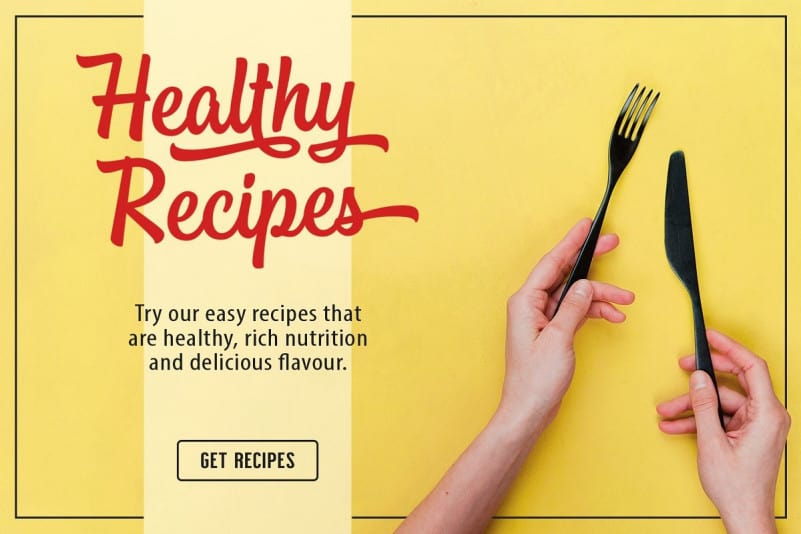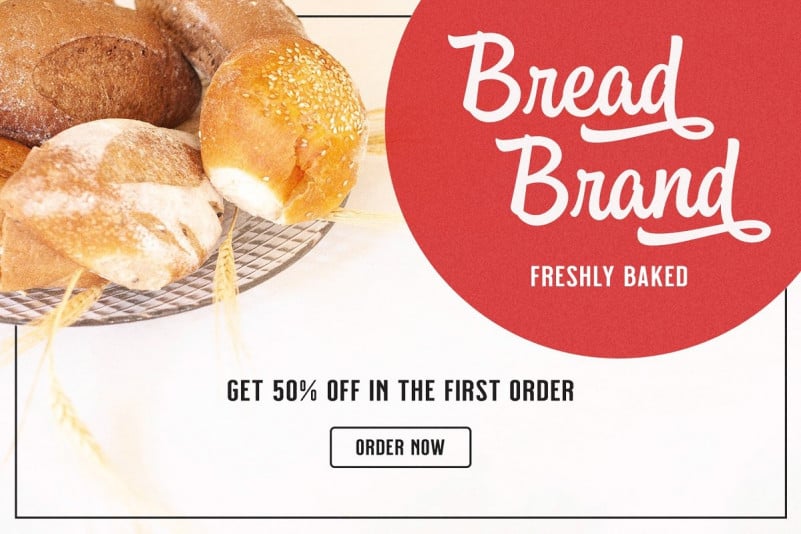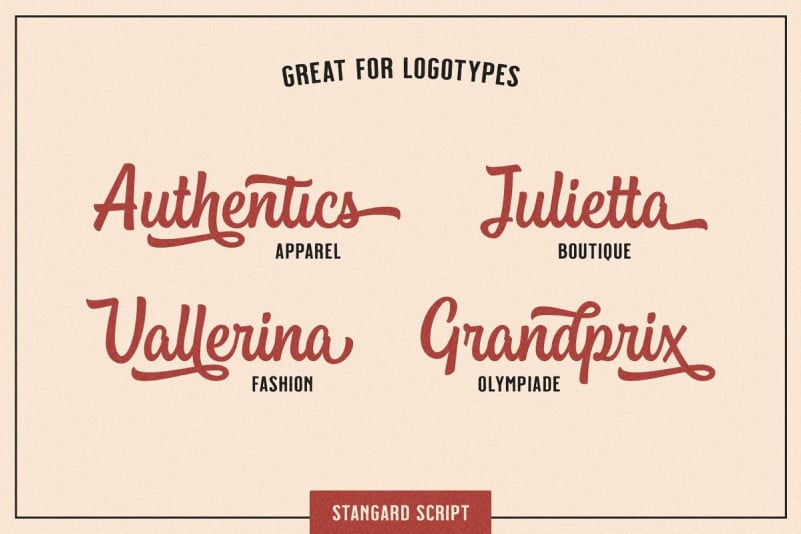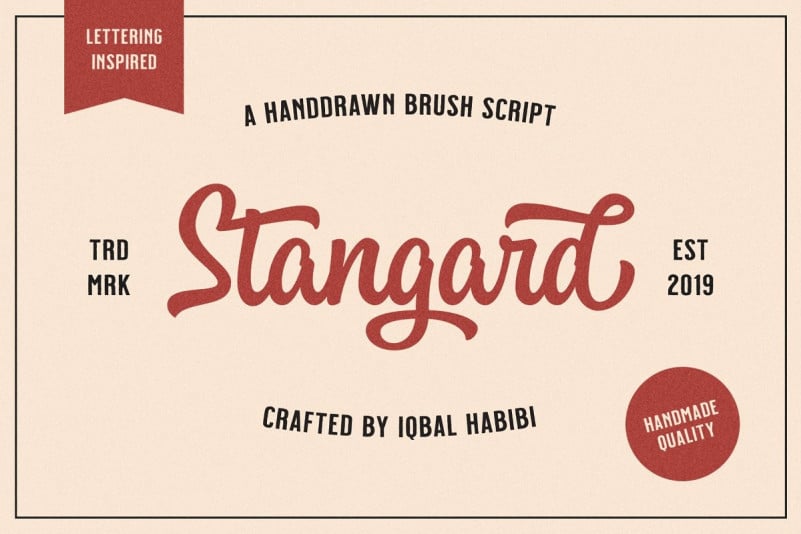
Stangard Script Font
Introducing Stangard Script Font. It’s a modern calligraphy font. It’s charming and elegant. This stunning script font is a stylish homage to classic calligraphy. It’s a hand drawn script inspired by brush lettering. Stangard has many alternate characters and ligatures. Great for creating lettering works, logotype, t-shirt design, packaging design, signboard, poster, and many more. Stangard allowing you to create custom logotype easier and faster.